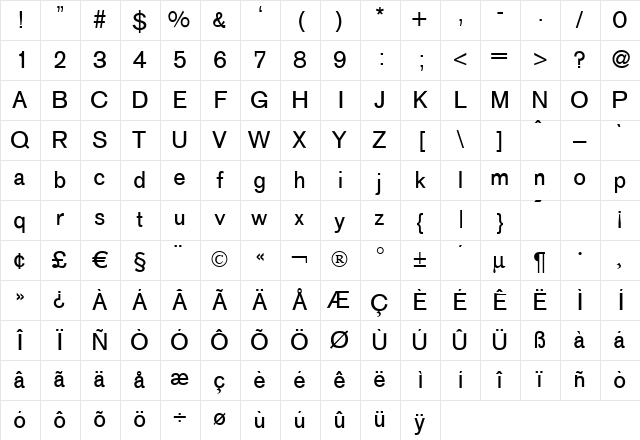
A750-Sans-Oldface Regular
Design Context for A750-Sans-Oldface
A750-Sans-Oldface is a composed and adaptable typeface that performs quietly and consistently across a wide range of design contexts.
Pro Tip: Use A750-Sans-Oldface in both headline and body roles to test its range before committing to a single application.